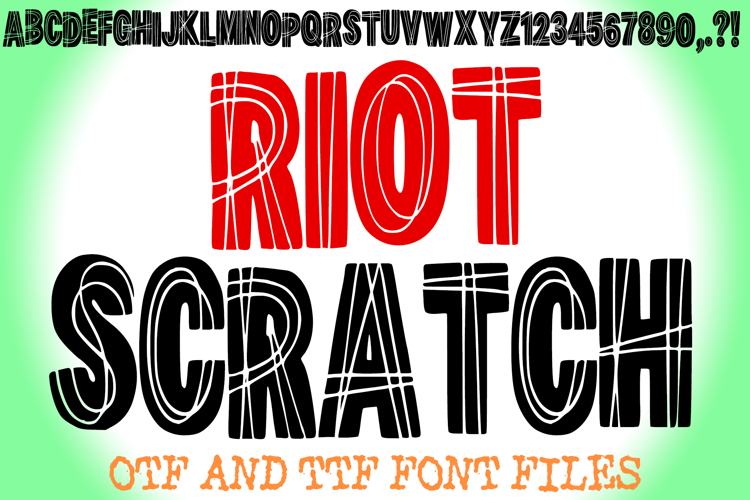
Riot Scratch Lettering ABC Punk Font Typeface Alphabet OTF
Unleash your inner rebel and make a bold statement with Riot Scratch Font! This electrifying typeface is engineered to capture the raw, unpolished energy of punk rock and street art, combining strong, assertive letterforms with a unique, aggressively scratched and scrawled internal texture. It's more than just a font; it's an anthem of defiance, designed to inject an immediate, edgy, and rebellious attitude into any creative project.
Each character in Riot Scratch Font features a powerful, block-like structure whose interior is consumed by chaotic, hand-drawn scratch marks, creating a dynamic, distressed, and eye-catching look. Ideal for crafting impactful headlines, punk band logos, gritty urban posters, protest signage, extreme sports branding, and engaging social media graphics, this font ensures your message screams with intensity and originality.
Whether you're aiming for a hardcore punk aesthetic, a raw street art vibe, a vintage protest poster feel, or just a fiercely unique display, this font delivers with uncompromising style. Its commanding presence ensures readability while injecting a raw, artistic chaos that stands out from polished, conventional designs.
If you're looking to infuse your designs with a sense of rebellion, raw energy, and undeniable street credibility, Riot Scratch Font is your ultimate tool. Join the riot and make your mark!